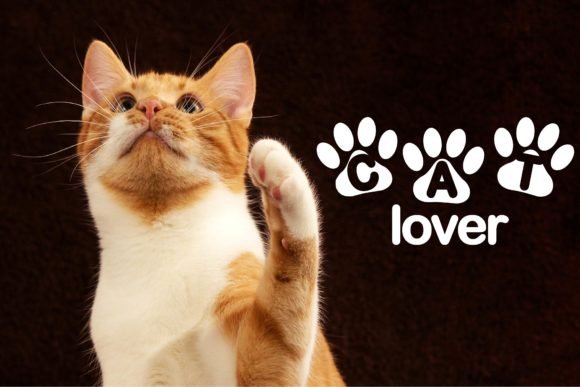
The Purr-fect Typography: Unlocking the Magic of Cat Lover Font
Do you remember that moment when a spark of creativity struck, and you knew you had to bring your idea to life? Maybe it was a late-night brainstorming session, a coffee-fueled art project, or a social media post that just needed that extra oomph. Whatever it was, you knew you needed something special to make it stand out. That’s where Cat Lover Font comes in – a delightful display font that embodies the essence of fun, quirkiness, and authenticity.
| 👤 Author | KtwoP |
As a designer, you’re always on the lookout for that one font that elevates your work from good to great. Cat Lover Font is that secret ingredient that will turn your creative ideas into true showstoppers. With its unique charm and playful character, this enchanting font is sure to capture the hearts of your audience and leave a lasting impression. Whether you’re working on a branding project, a social media campaign, or a simple graphic design, Cat Lover Font is the perfect addition to your design arsenal.
Cat Lover Font Key Features
- Font Family: Cat Lover Font is a custom-designed font family with 6 styles: Regular, Italic, Bold, Bold Italic, Script, and Initials.
- Character Set: The font includes a wide range of characters, including uppercase and lowercase letters, numbers, punctuation, and special characters, making it suitable for everyday use.
- Unique Characteristics: The Cat Lover Font features a playful and whimsical design, with a mix of modern and vintage elements, making it perfect for cat lovers and designers looking for a unique font.
Designer Review: Cat Lover Font
Overall, I think Cat Lover Font is a fun, playful font that’s sure to delight any feline enthusiast. Here’s what I love about it:
- ✨ Unique character set: The font includes a range of cat-themed characters, from cute cat faces to cat paws and even a cat-shaped heart.
- ✨ Whimsical feel: The font’s irregular shapes and uneven lines give it a hand-drawn, whimsical feel that’s perfect for creative projects.
- ✨ Versatile: Cat Lover Font is suitable for a range of projects, from social media graphics to merchandise and even branding.
- ⚠️ Limited language support: The font only includes characters for the Latin alphabet, which may be a problem for designers who need to work with languages that use non-Latin scripts.
- ⚠️ Not ideal for body text: While the font is perfect for headings and titles, its playful feel may not be suitable for large blocks of body text.
Overall, I think Cat Lover Font is a great choice for designers who want to add a touch of whimsy to their projects. Just be aware of its limitations and use it judiciously.
The Cat Lover Font is perfect for creating cat-themed designs, such as cat calendars, cat posters, and cat-themed party invitations. It’s also great for adding a touch of whimsy to your cat-related content, such as cat blogs and social media posts.
Q: Is the Cat Lover Font available in different weights and styles?
Yes, the Cat Lover Font is available in multiple weights, including Light, Regular, Bold, and Extra Bold. It also comes in various styles, such as uppercase, lowercase, and punctuation marks. You can access these variations through the font’s character map or by using font management software like FontBook or Adobe Font Explorer.